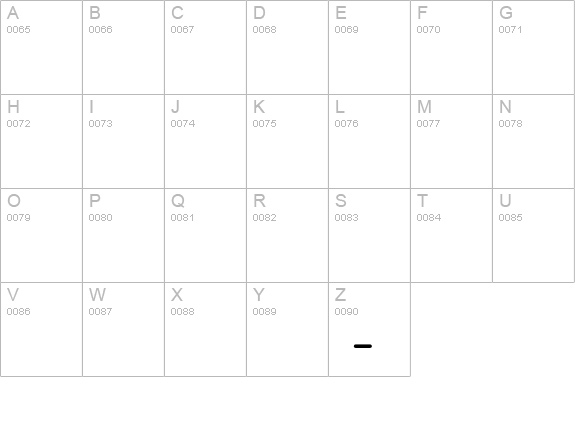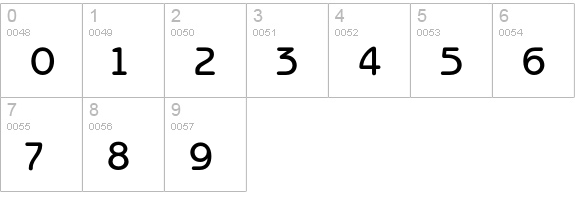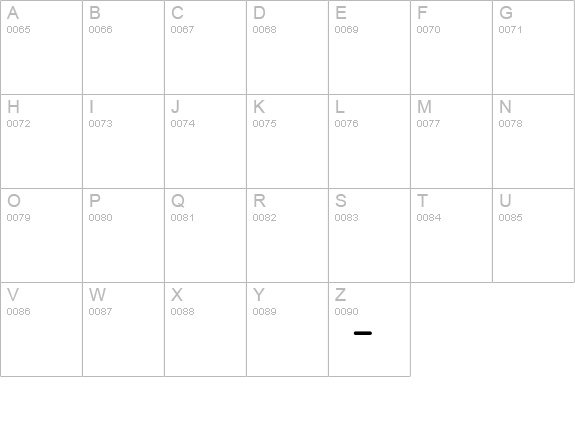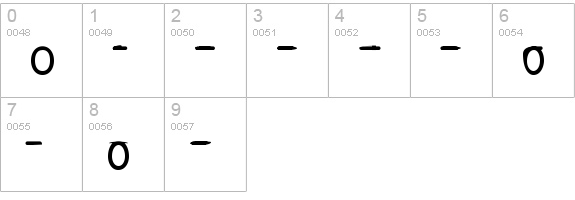
Benzion font is a modern and elegant typeface that exudes sophistication and style. With its clean lines and versatile design, Benzion font is perfect for a wide range of projects, from branding to editorial design. This font features a unique combination of classic and contemporary elements, making it a standout choice for any creative endeavor. What sets Benzion font apart is not only its timeless appeal but also the fact that it is available for free download at FontsMarket.com. This means that you can easily access this high-quality font without any cost, making it a valuable addition to your design toolkit. Whether you're working on a logo, website, or print materials, Benzion font will elevate your project and give it a polished finish. Don't miss out on this fantastic opportunity to enhance your designs with the free Benzion font, available now at FontsMarket.com.